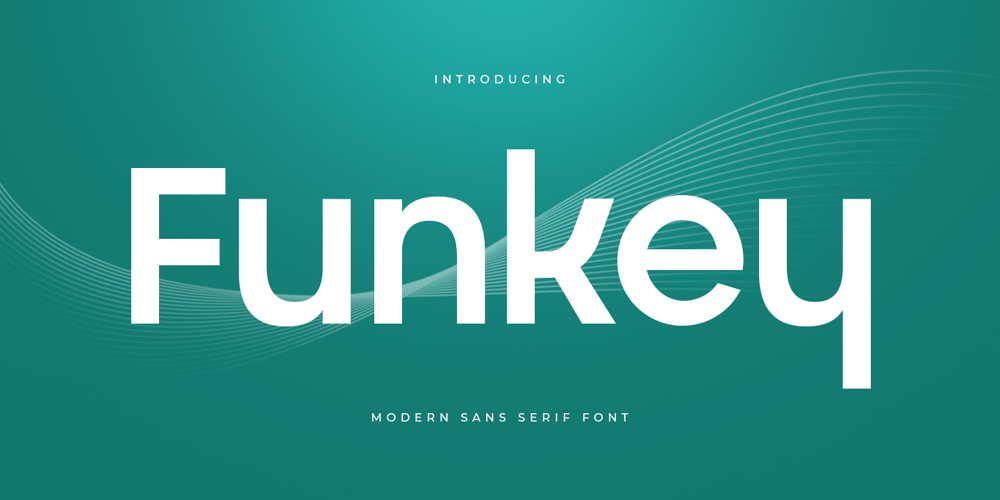
Funkey Font Family was designed by Zamroni Hamzah and published by Sensatype Studio. Funkey contains 1 styles and family package options. Funkey is a Modern Sans Serif Font with Unique curve that perfect for branding, logotyp, poster design, etcA new San Serif Font that we created special for Headline, Title and more stand out typography needs, with extra ligature that will add your variations. It’s so perfect to add your style and headline overview. And specially for Headline font, we crafted for unique style and modern feels so enjoy to create any project that will show your main idea out.Funkey Modern Sans Serif Font ready with: Any options to get creative variations (combination of Ligature Characters) 3 files format already Preview as a inspirations that you can do with Funkey font Ready with All characters Wish you enjoy our font. ๐